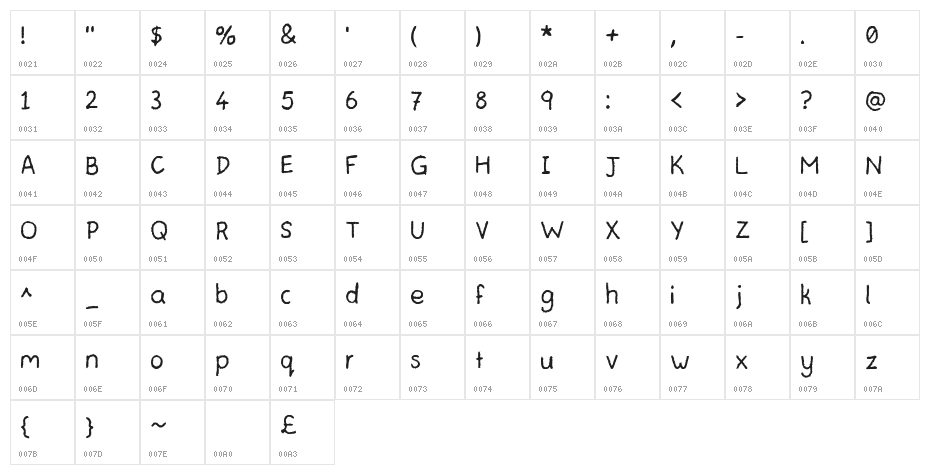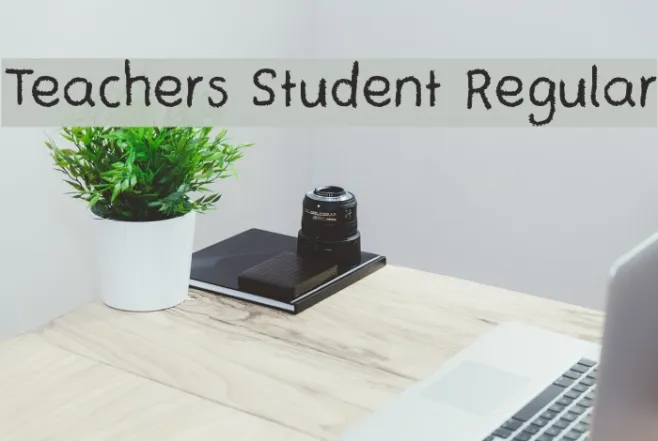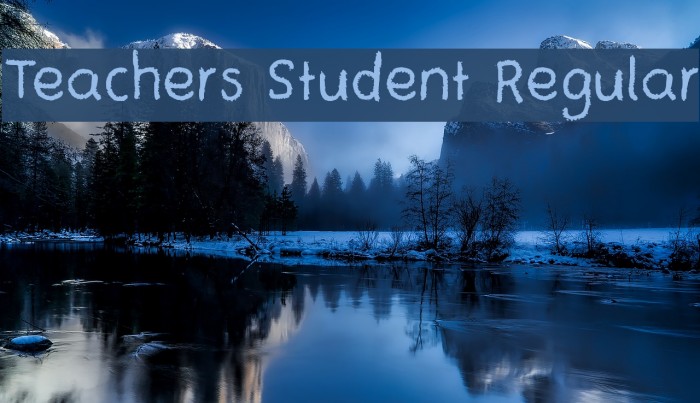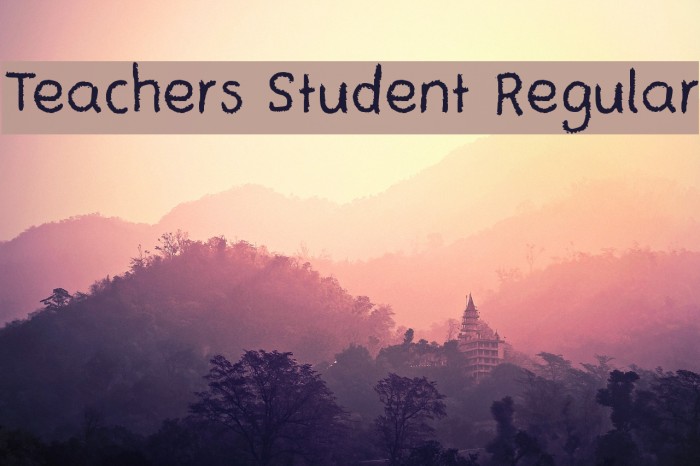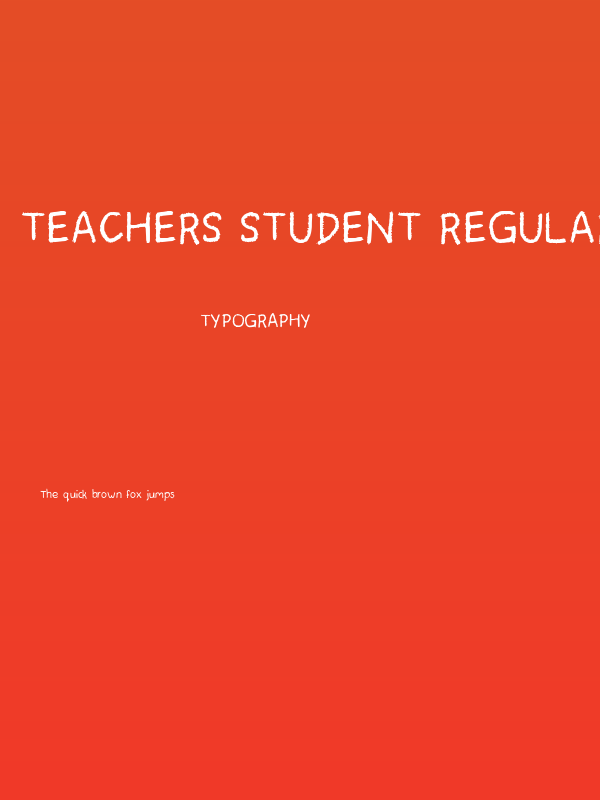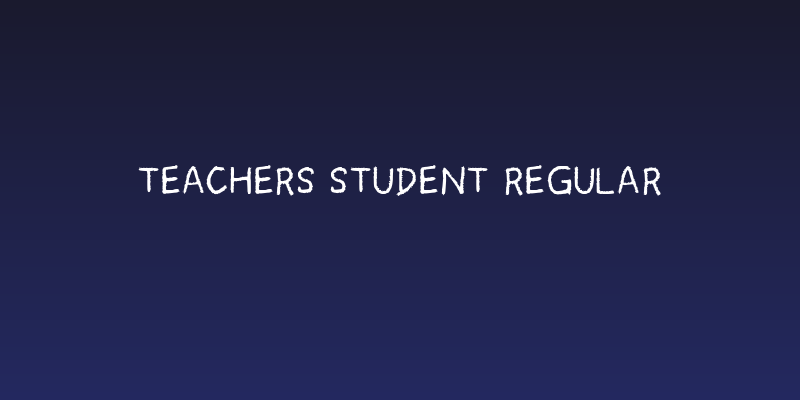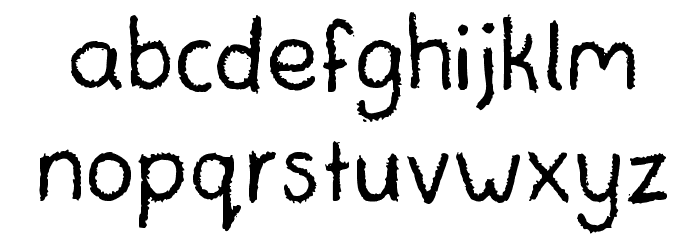
Teachers Student Regular Font
Teachers Student Regular Description
This font exudes a playful and informal style, reminiscent of handwriting with a chalk-like texture. The characters are slightly irregular, adding a personal and approachable feel. The uppercase and lowercase letters maintain a consistent style, with rounded edges and a slightly uneven baseline, enhancing the handwritten effect. Numbers and special characters follow the same design principles, ensuring uniformity across all glyphs. The font's texture gives it a tactile quality, making it suitable for projects that aim to convey warmth and creativity.
| Overall Style | Informal, Creative |
| Proposed Projects | Ideal for educational materials, children's books, creative posters, and informal invitations. |